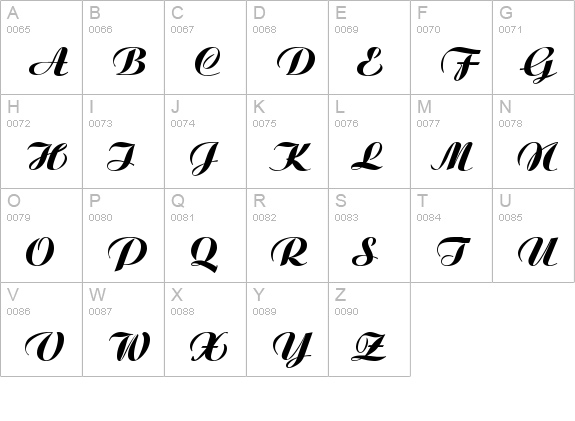
Ariston Font Details
Ariston font is a modern and elegant typeface that exudes sophistication and versatility. With its clean lines and classic design, Ariston is perfect for a wide range of design projects, from branding to editorial layouts. This font strikes the perfect balance between professionalism and creativity, making it a versatile choice for both digital and print applications. What sets Ariston font apart is not only its timeless appeal but also its accessibility. This high-quality font is available for free download at FontsMarket.com, allowing designers and creatives to easily incorporate it into their projects without breaking the bank. With its extensive character set and multiple weights, Ariston offers endless possibilities for customization and design experimentation. Whether you're working on a sleek corporate identity or a stylish editorial spread, Ariston font is sure to elevate your design with its refined aesthetic and modern charm. Download Ariston font today and add a touch of sophistication to your next project.